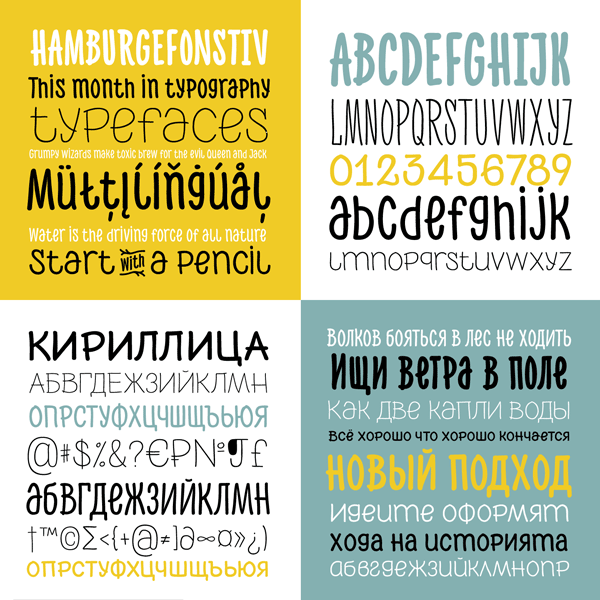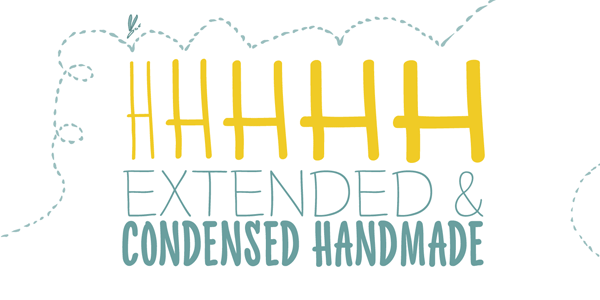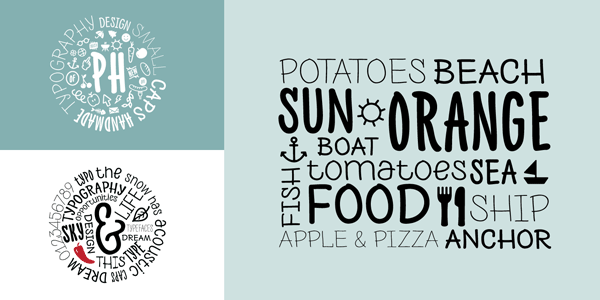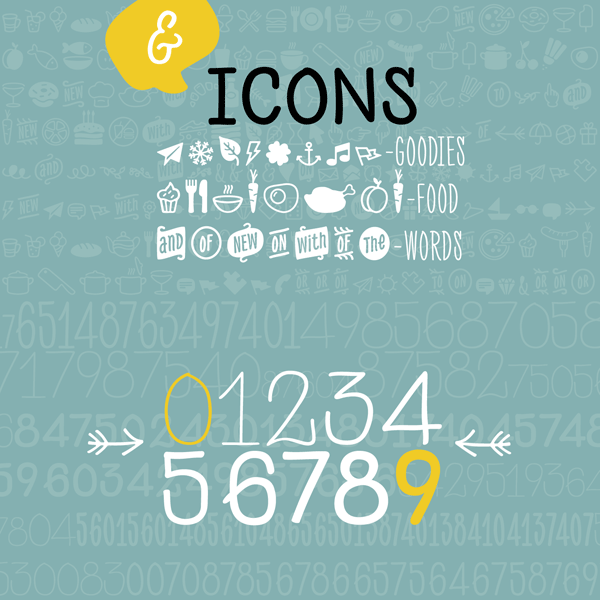
PH fonts, an extended handmade type system from foundry Fontfabric.
The complete set of PH fonts is a hamd drawn type system from foundry Fontfabric that includes a huge collection of different font weights and widths (Condensed, Narrow, Regular, Extended, and Wide) as well as icons and catchwords. This multifaceted type system has been designed by Ani Petrova and Asen Petrov in 2014. All the PH fonts are characterized by a nice handmade look. The extended character set supports multiple languages and is available as both desktop font and webfont.